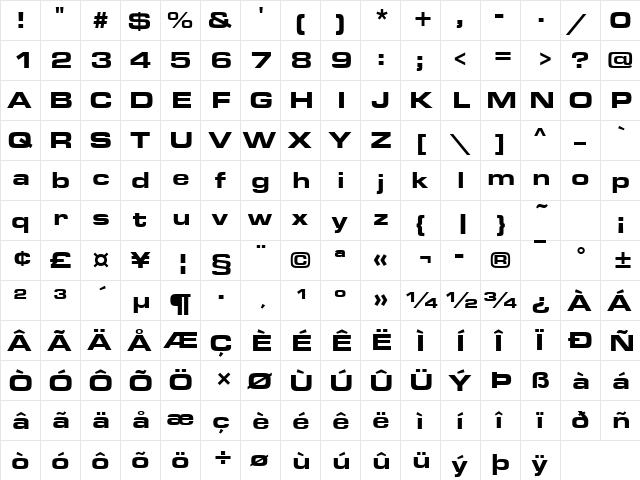
EurostileTBlaExt Regular
Design Context for EurostileTBlaExt Typeface
EurostileTBlaExt offers clean, dependable letterforms without strong stylistic allegiance, making it a practical choice for designers who need flexibility.